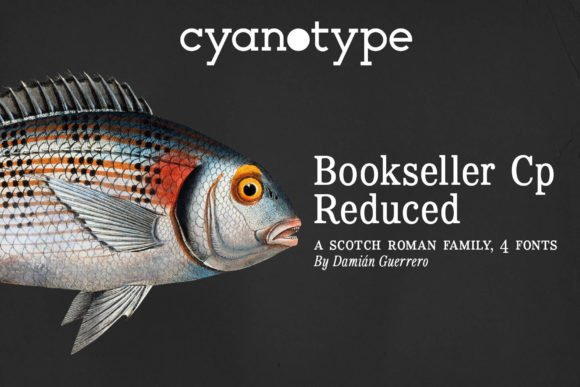
Enter Bookseller Cp Reduced Font, a serif font designed to transport your readers to a world of old books and classic literature. With its narrow lines and optical adjustments, it’s perfect for saving precious text lines without compromising on readability. Whether you’re working on a book, magazine, or editorial design project, this font is a valuable addition to your toolkit.
With its robust features, including small caps, old-style figures, and a basic Cyrillic alphabet, Bookseller Cp Reduced Font is a go-to choice for designers who demand the best. Its solid shapes and elegant design make it an ideal choice for any project where text plays a crucial role.
- Unique Characteristics: “Bookseller Cp Reduced Font” features a condensed and reduced version of the original Bookseller font, making it ideal for narrow or tight spaces.
- Legibility: The font is designed for clear readability, with carefully crafted letterforms and spacing for easy comprehension.
Designer Review: Bookseller Cp Reduced Font
First off, I love the typographic feel of this font. The ✨ rounded edges and subtle nuances make it perfect for use in editorial content and publications. It’s also highly legible, which is essential for any font intended for large blocks of text.
- The font’s small size allows for dense text arrangement, making it ideal for newspapers, magazines, and other periodicals.
- The reduced contrast makes it easy on the eyes and suitable for long reading sessions.
- It also comes in a range of weights and styles, providing flexibility for various design applications.
However, I do think there are a few limitations to consider: ⚠️ Limited expressiveness means it might not be the best choice for bold headlines or dramatic statements.
Overall, I think Bookseller Cp Reduced Font is a solid choice for any publication or editorial project where legibility and readability are key. It’s a reliable workhorse that won’t overwhelm the reader, but still provides a touch of personality and visual interest.
Tips: Use Bookseller Cp Reduced Font for headings and titles to add a touch of elegance to your designs.
Tips: Use Bookseller Cp Reduced Font for typography-heavy designs, such as book covers or magazine layouts.
Tips: Use Bookseller Cp Reduced Font for presentations or documents that require a professional and elegant touch.
Bookseller Cp Reduced Font is ideal for:
- Book covers and book layouts
- Magazine and newspaper layouts
- Documents and proposals